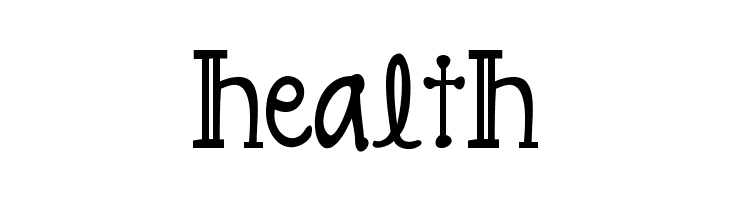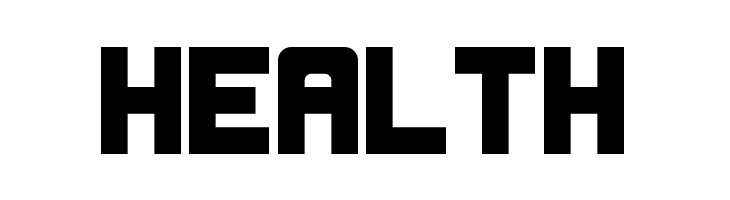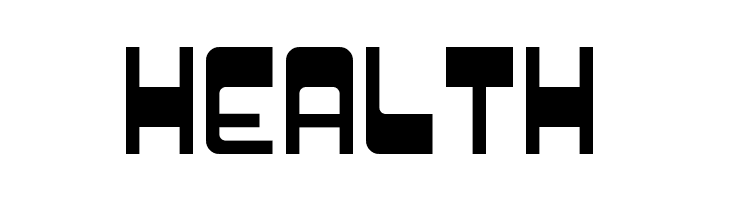
A playful, handwritten font with whimsical elements and decorative characters.
A playful and whimsical font with bold strokes and rounded terminals.
A playful, hollow font with rounded characters and a whimsical style.
A playful, thin handwritten font with a whimsical and casual style.
An elegant script font with flowing, cursive style and intricate swashes.
A modern, geometric font with a bold, condensed style and sharp, angular characters.
A modern, condensed, semi-italic font with a sleek, angular design.